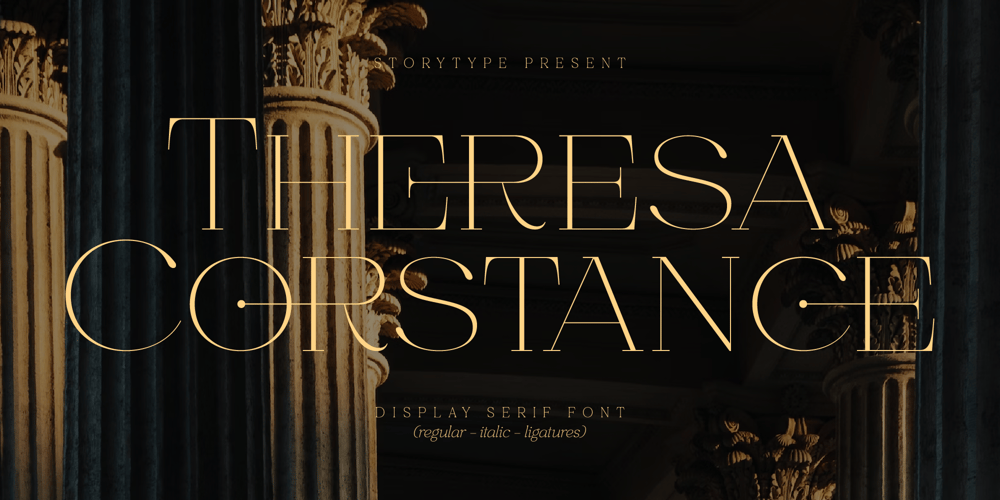
Theresa Corstance
Theresa Corstance font
Theresa Corstance Font Family was designed by Heru Utama Putra and published by Letterena Studios. Theresa Corstance contains 2 styles and family package options. Theresa Corstance is a serif modern and classic typeface that has its own unique style & modern look. This typeface is perfect for an elegant & luxury logo, book or movie title design, fashion brand, magazine, clothes, lettering, quotes, and so much more.–Uppercase